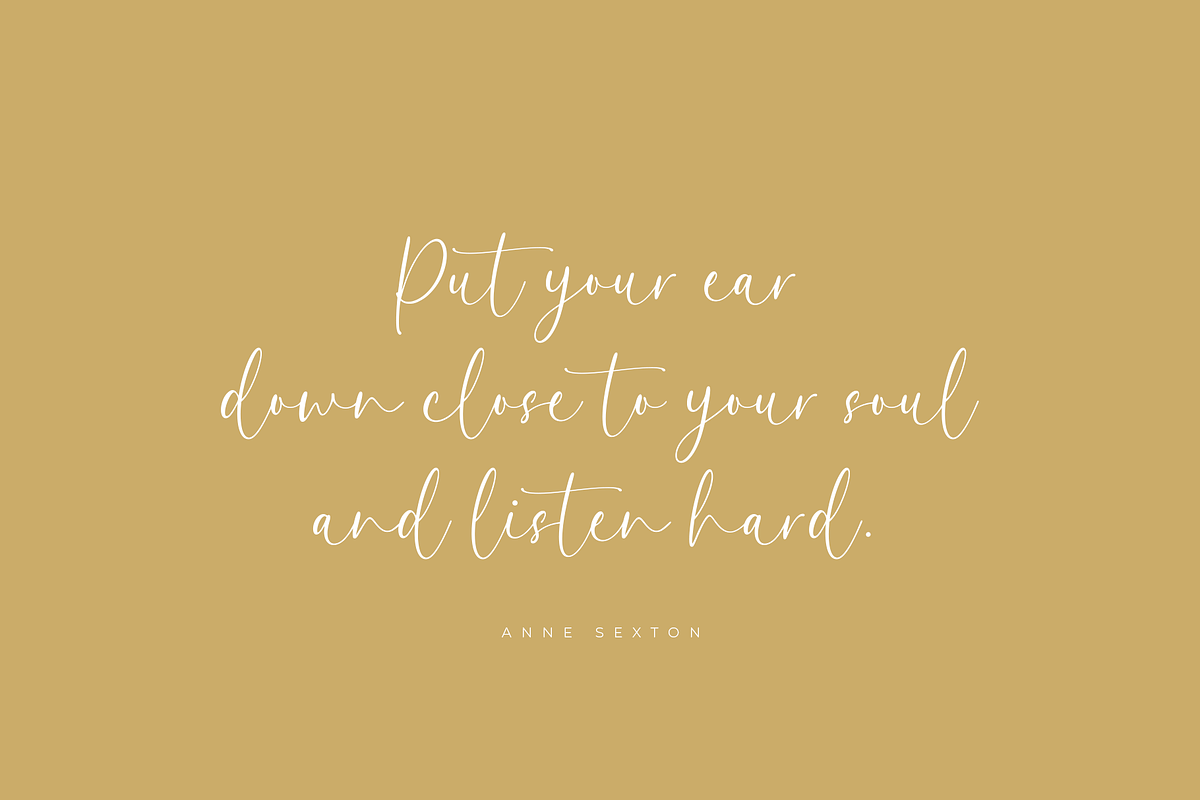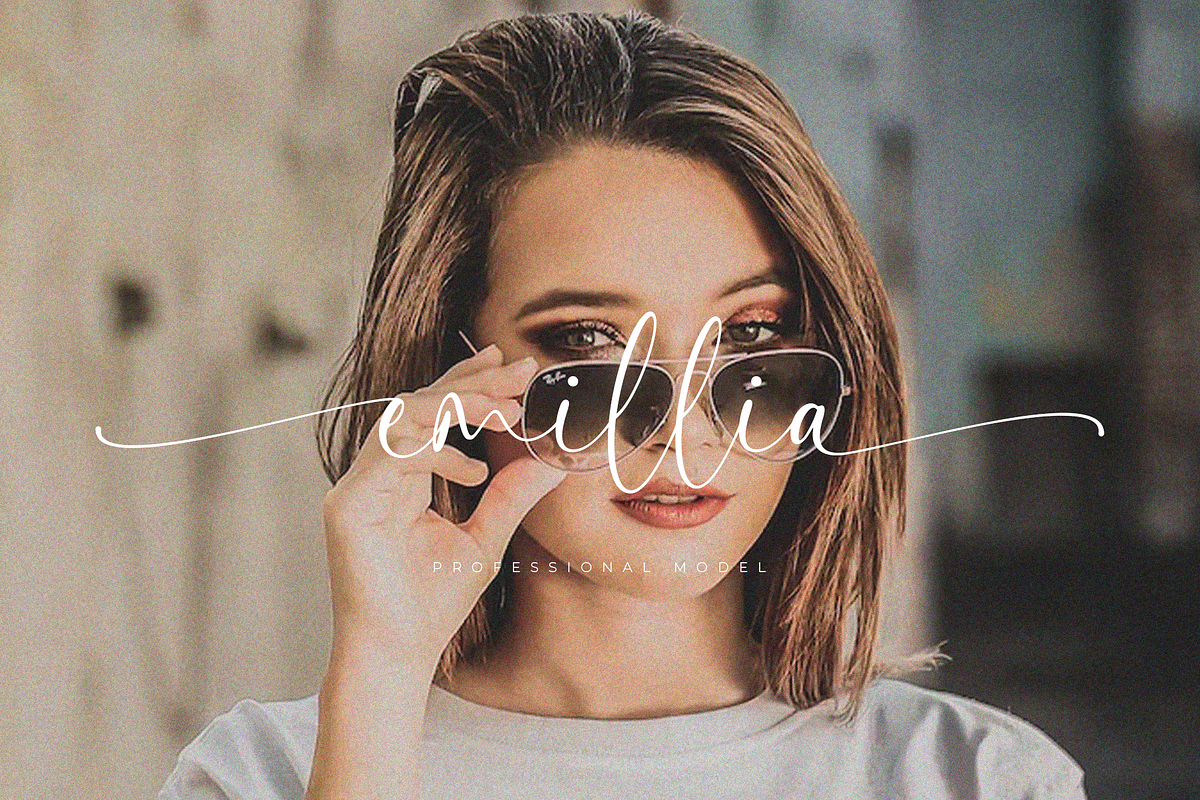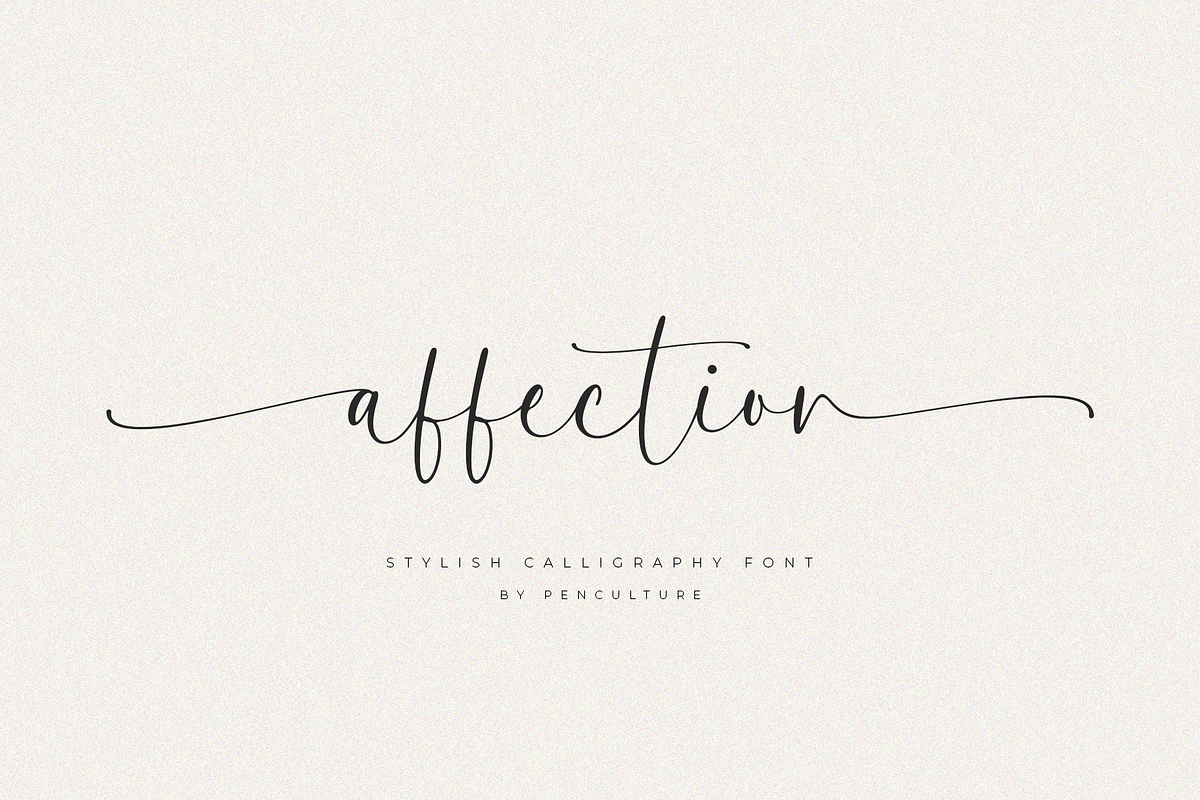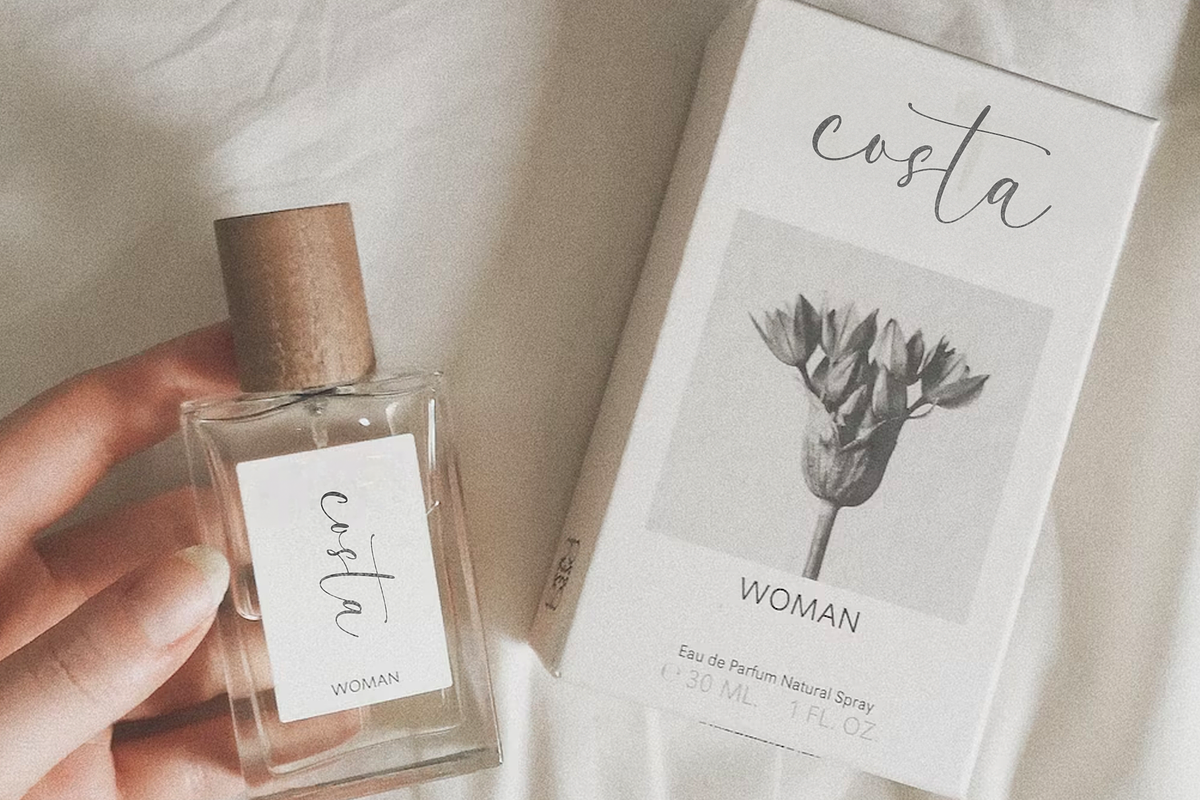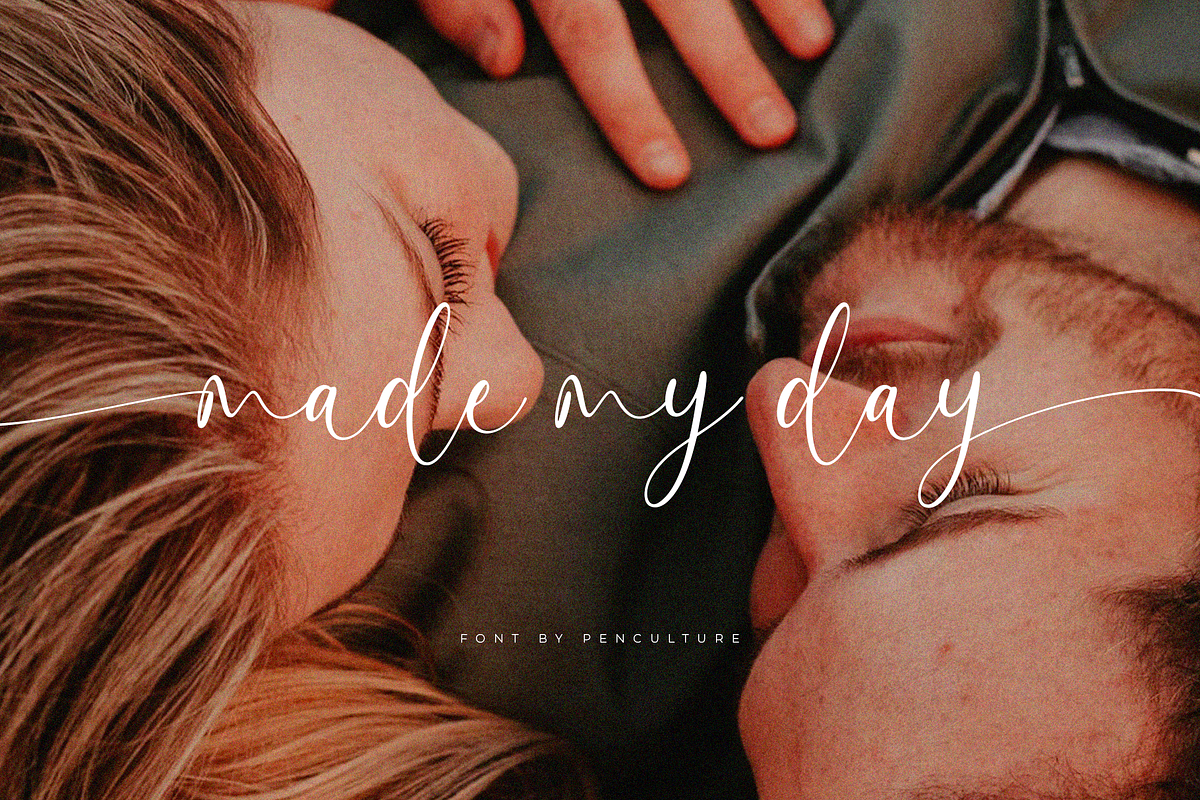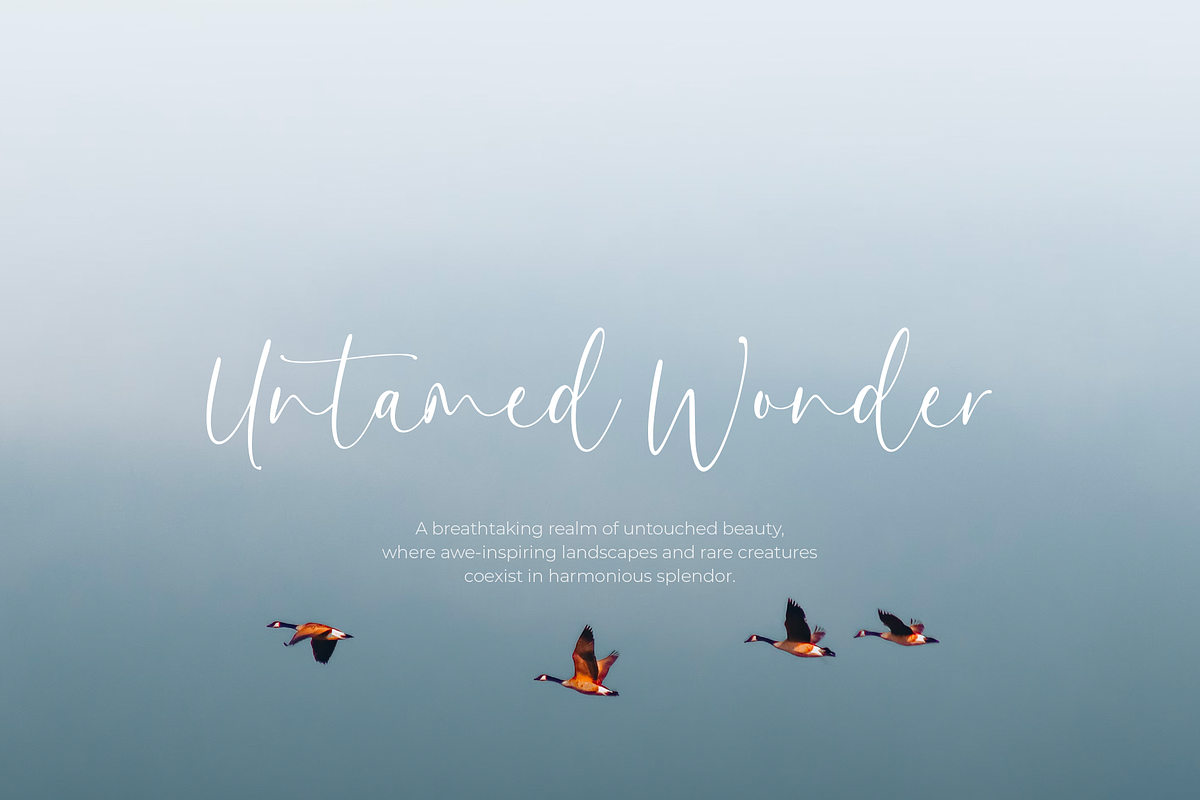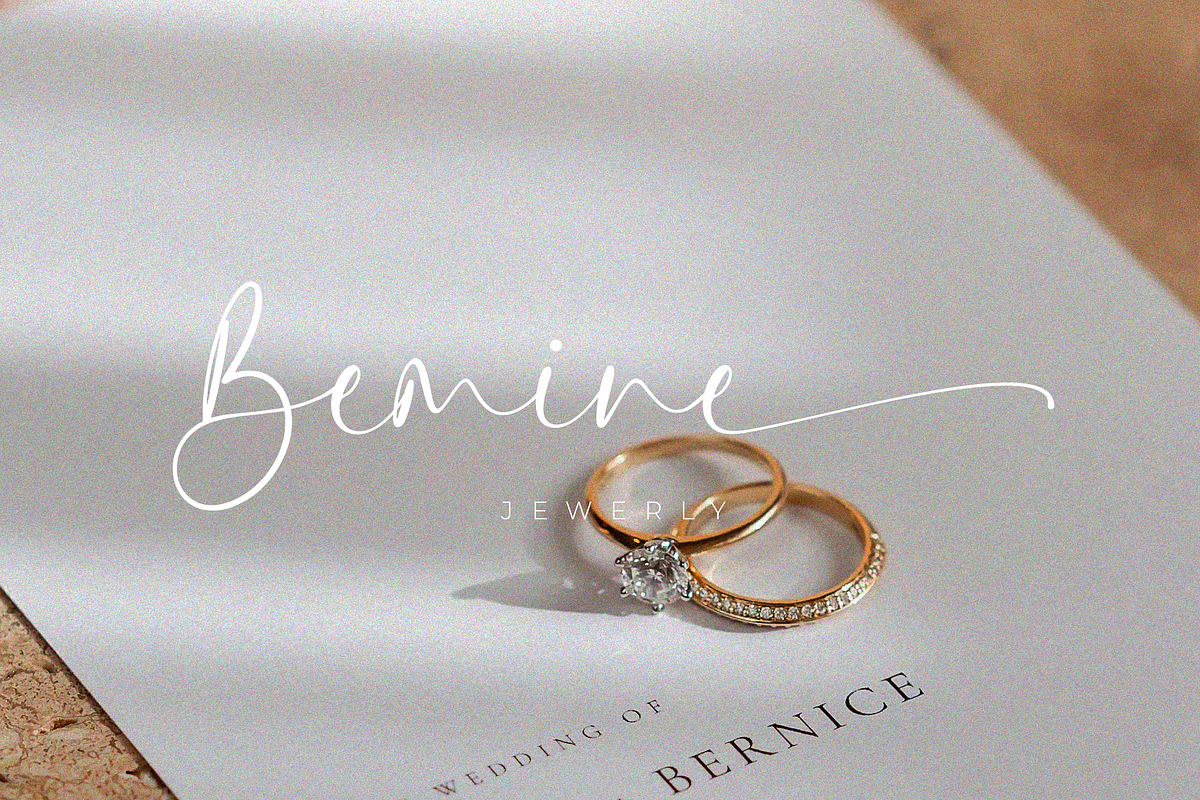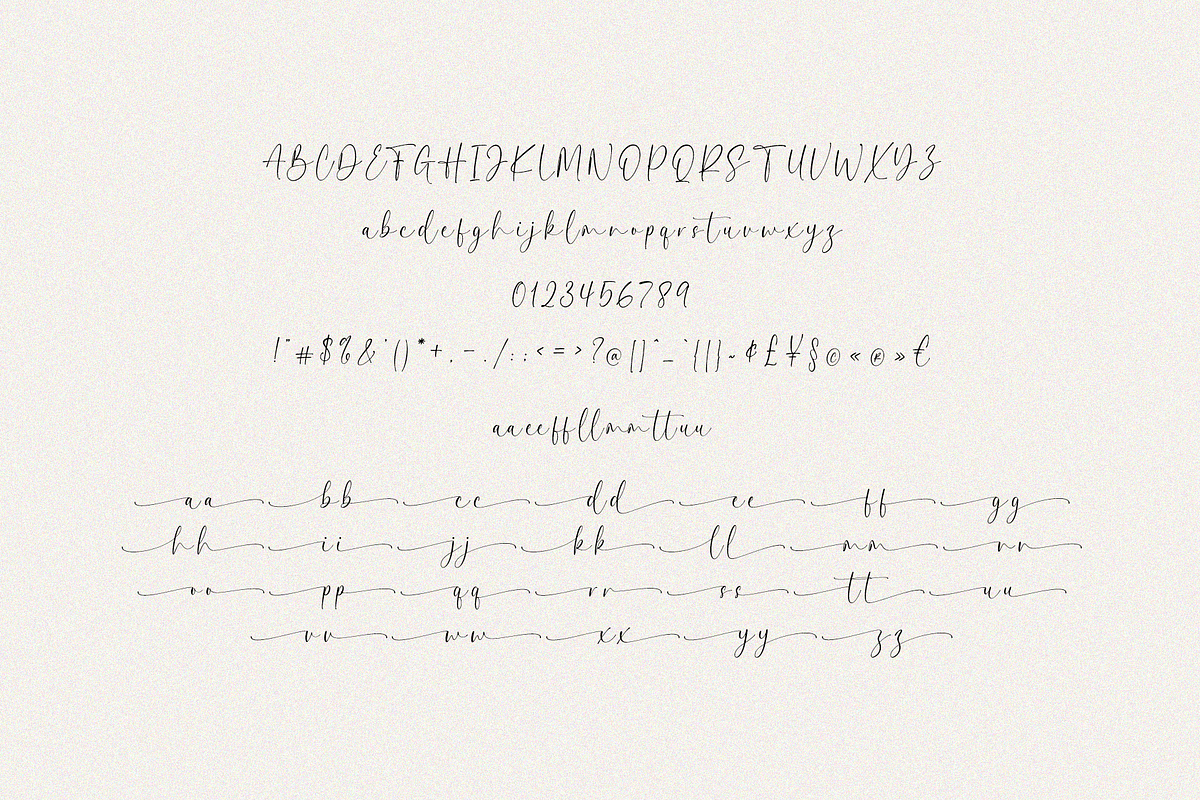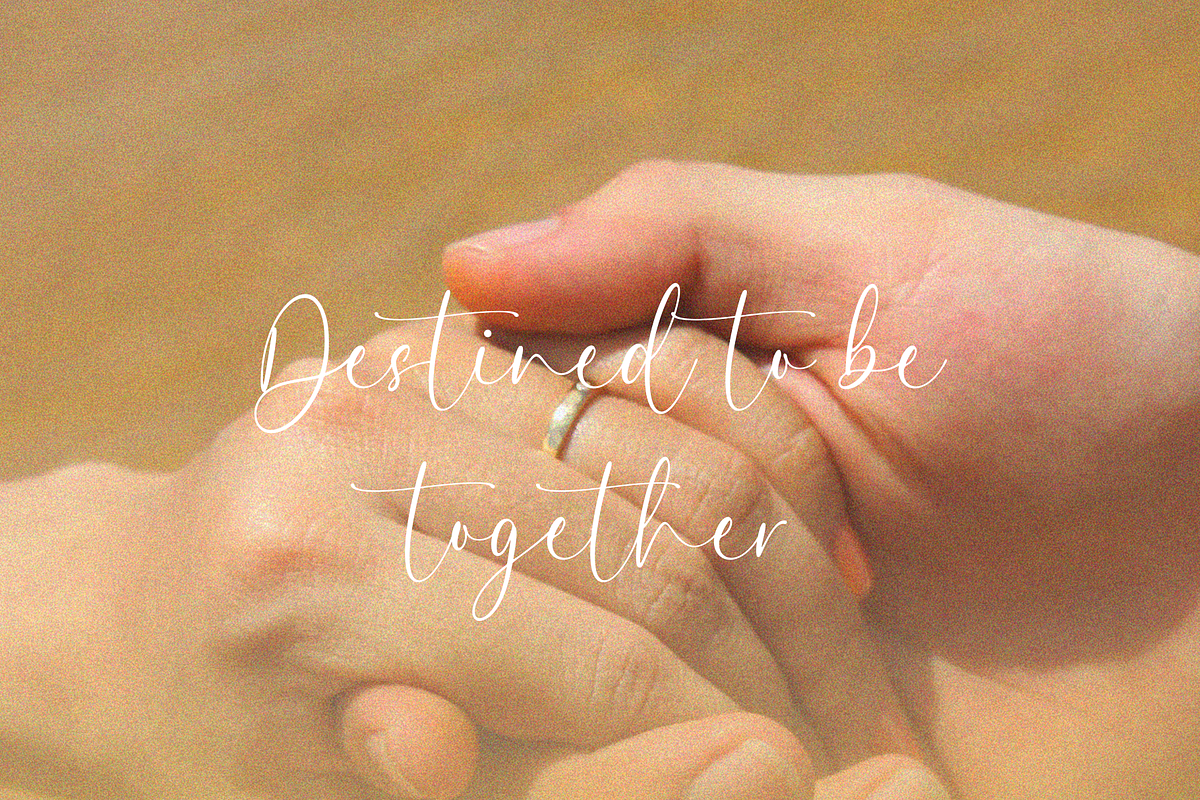
Affection Calligraphy Font
Proudly present "Affection Calligraphy Font"
Affection is a charm and stylish calligraphy font that come with its effortless swashes and simple yet captivating letterforms, "Affection" exudes a laid-back charm that effortlessly draws attention. This font perfect for wedding invitation, branding and many more.
- Fully uppercase and lowercase
- Number and punctuation
- Beginning and ending swashes